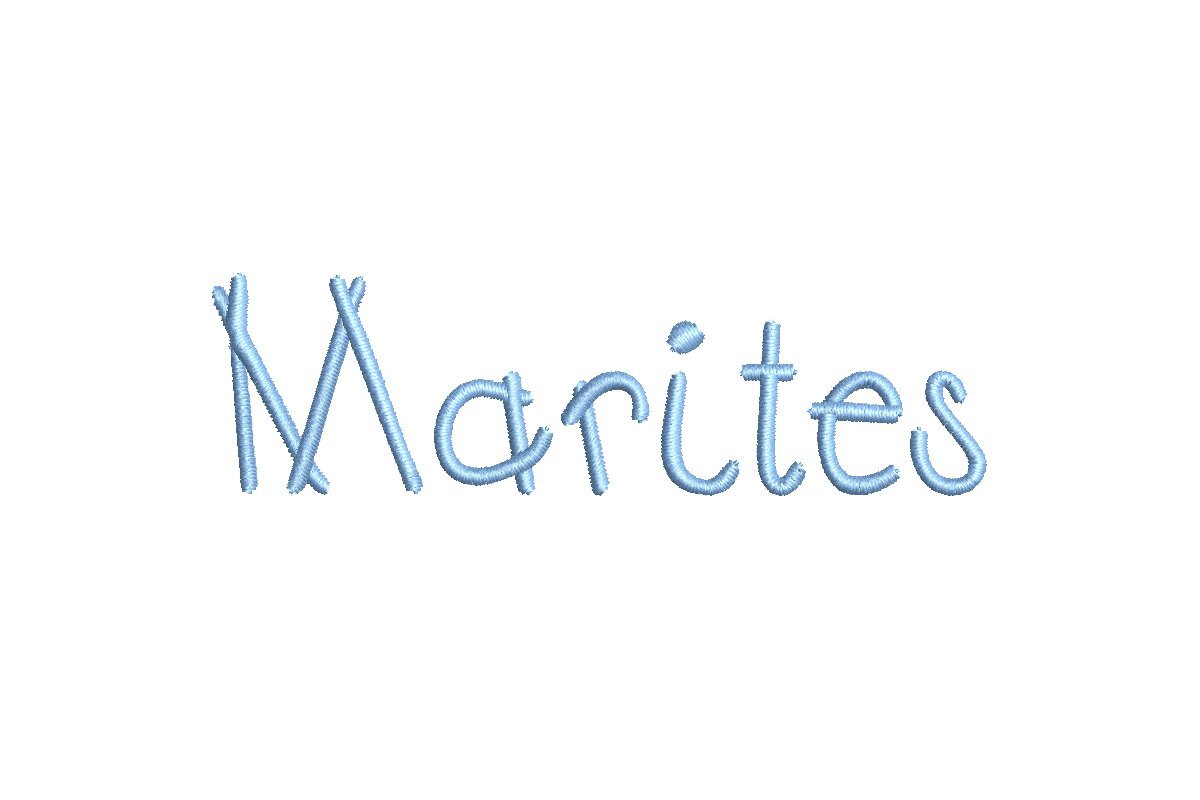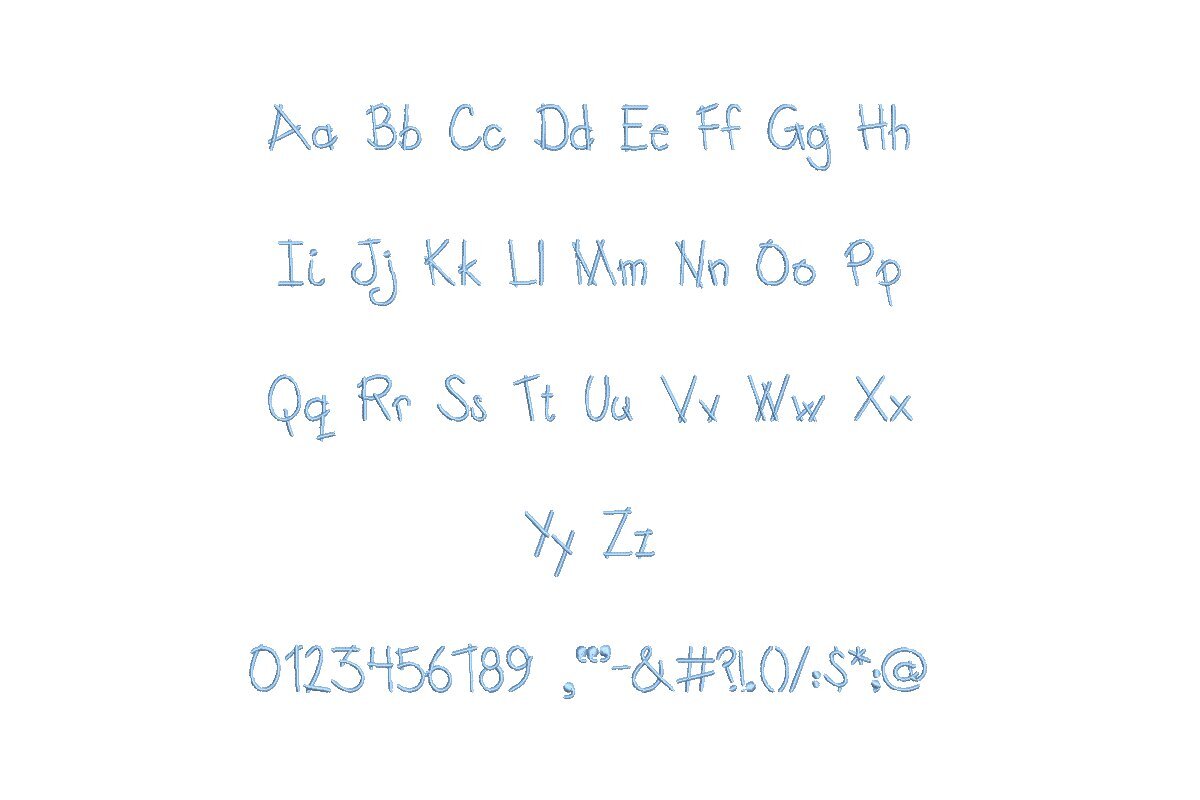
Introducing the Marites ESA font, your essential tool for exquisite embroidery. Tailored for seamless compatibility with Wilcom Studio e4.5.6 and Hatch 3 versions and up, this font effortlessly integrates into your digitizing process. Marites ESA offers impeccable precision and versatility, making it ideal for monograms, elegant text, and intricate designs. Elevate your embroidery projects with its exceptional quality and timeless style. Craft professional and captivating designs effortlessly on various fabrics and items. Don't miss the opportunity to enhance your embroidery journey. Choose the Marites ESA font today and unlock a world of creativity and precision with every stitch, setting new standards for your embroidery excellence.